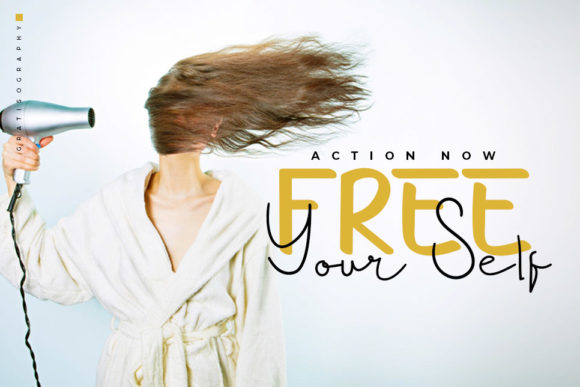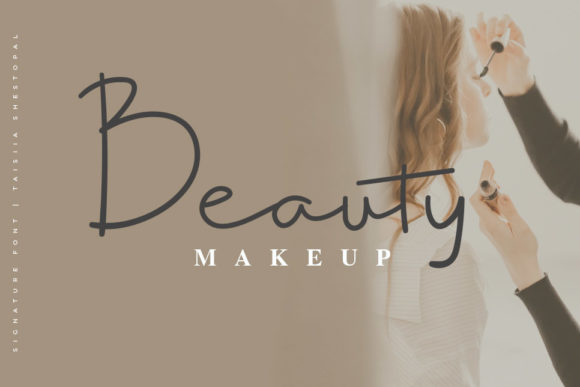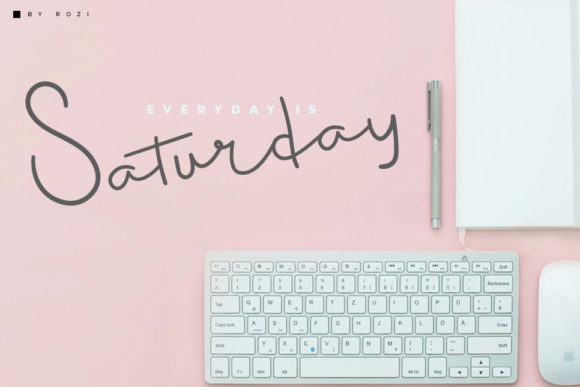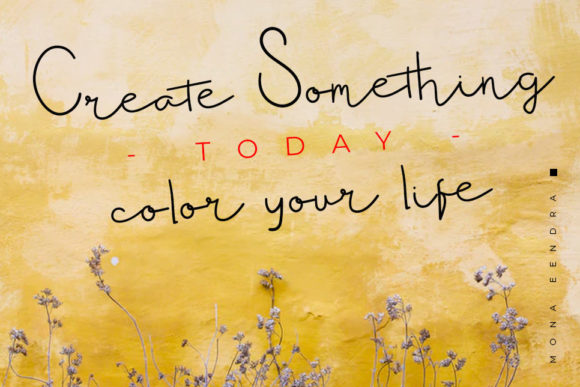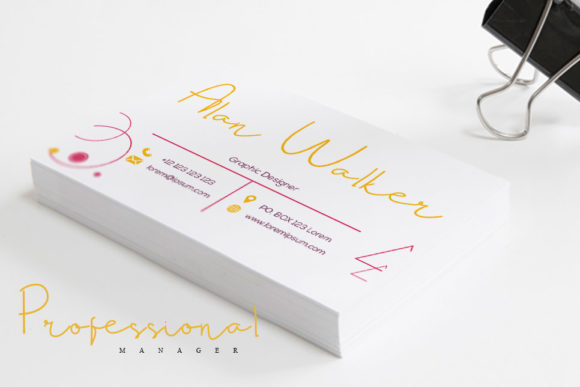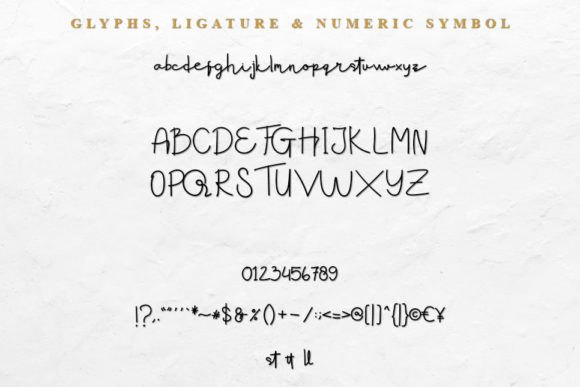
Glamor Font
About Glamor Font
Glamor is a beautiful signature font. It is the perfect choice for a wide variety of design projects such as branding, headings, wedding designs, invitations, signatures, logos, labels, and much more!